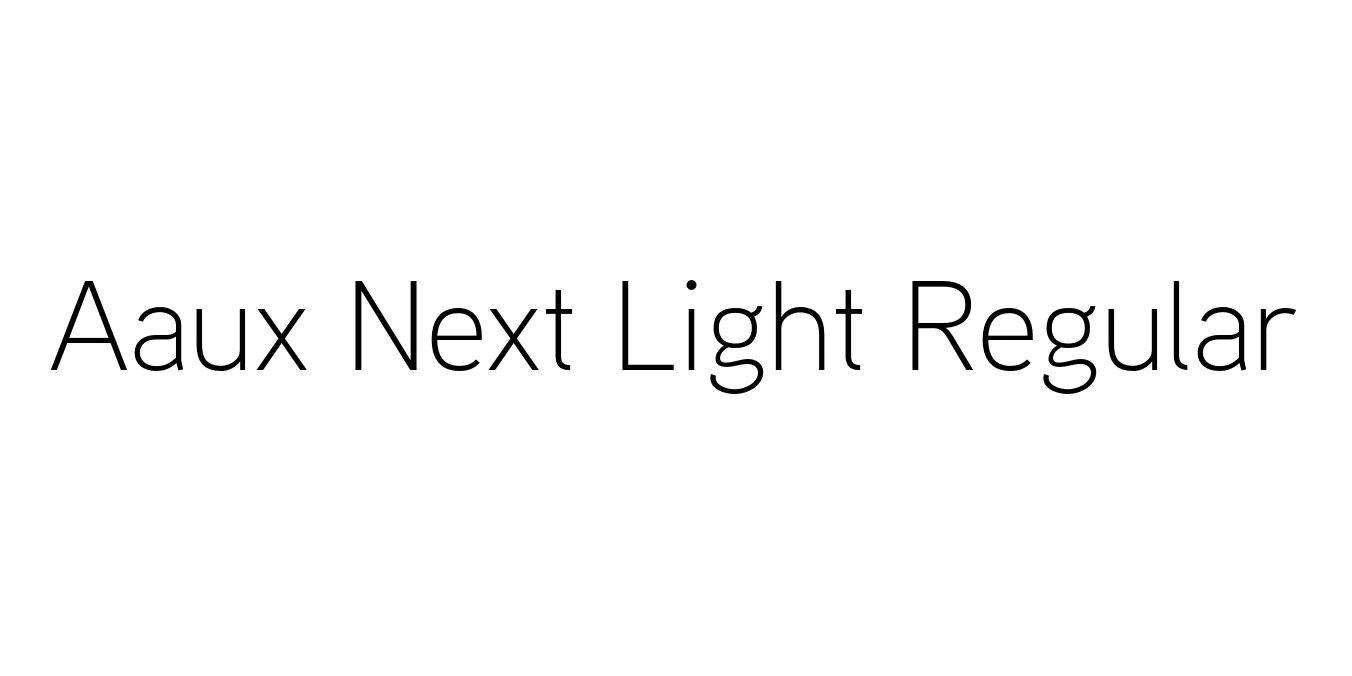
Aaux Next Light Regular
Designed by Neil Summerour
Aaux Next Light Regular is a significant evolution of the original Aaux Pro typeface, meticulously refined and expanded by Neil Summerour of Positype. This font family represents a contemporary approach to the geometric sans-serif, focusing on enhanced legibility and a more balanced weight distribution. The Light weight, in particular, offers a delicate and airy aesthetic that is perfect for high-end design projects where elegance and clarity are paramount.
Technically, the typeface features a generous x-height and open counters, ensuring that it remains highly readable even in challenging digital environments. It successfully bridges the gap between cold, technical precision and warm, humanist curves. This makes Aaux Next an incredibly versatile tool for designers, capable of handling everything from complex corporate identities to minimalist editorial layouts with professional ease.
Aaux Next Light Regular Best Uses
Perfect for creating sophisticated and tech-forward brand identities.
Excellent for clean website headers and modern UI components.
Well-suited for high-end magazine layouts and typographic posters.
Great for minimalist ad campaigns that require a professional touch.